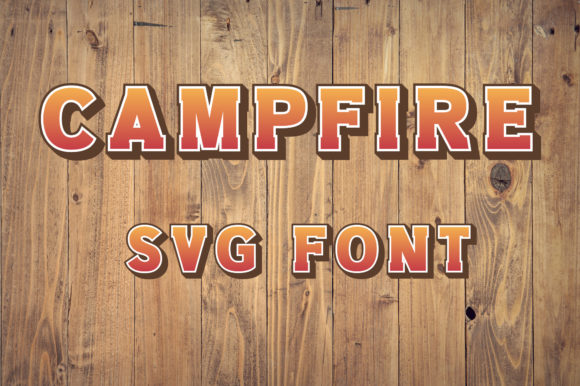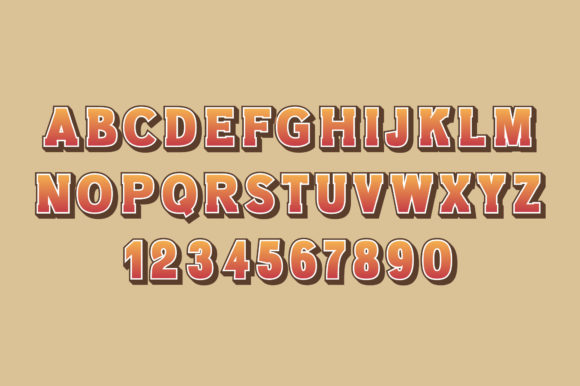
Campfire Camp Font
Campfire is an impactful, bold color SVG Font.
Campfire brings you a unique and cartoony look that is great for posters, illustrated stories, comic book titles, and T-Shirt design.